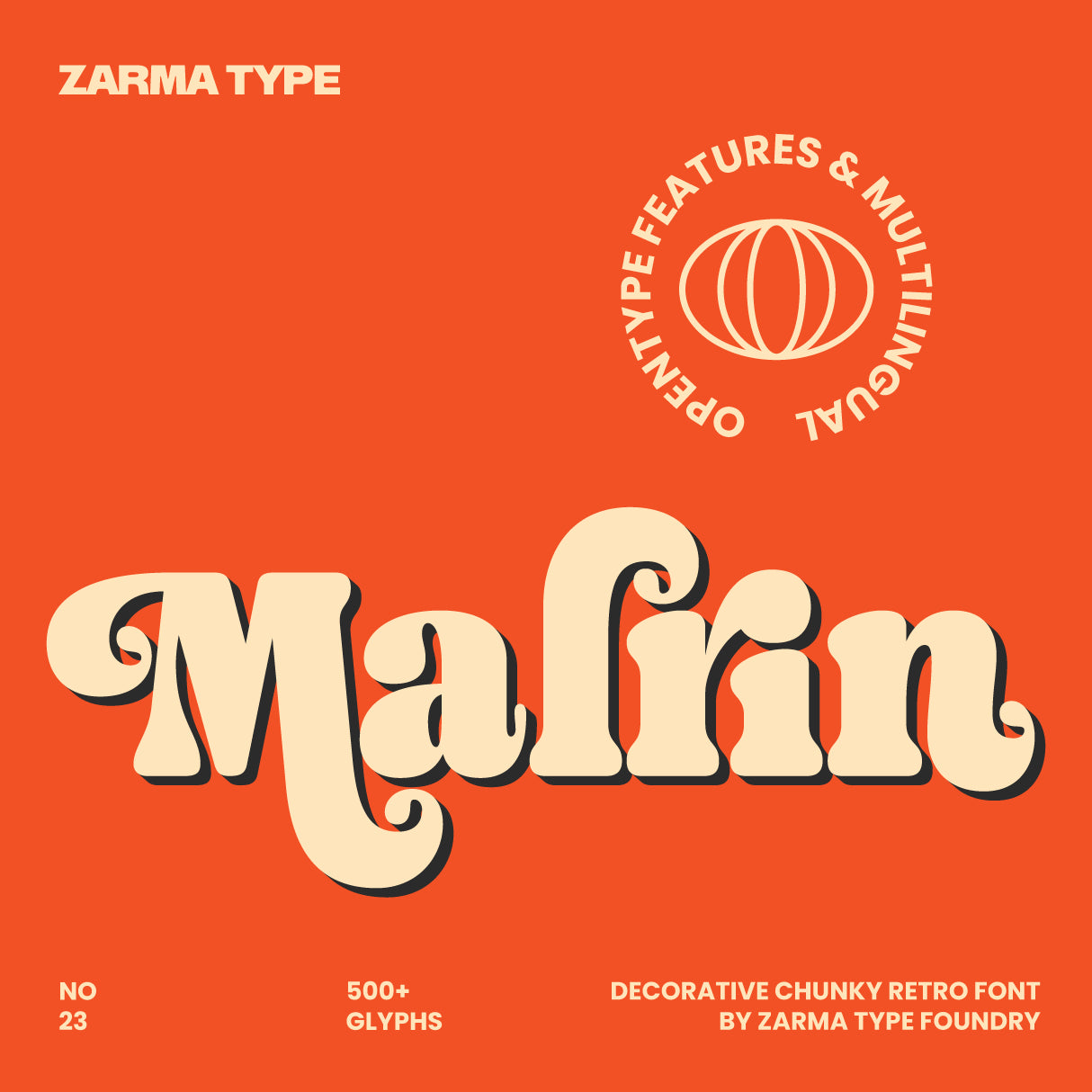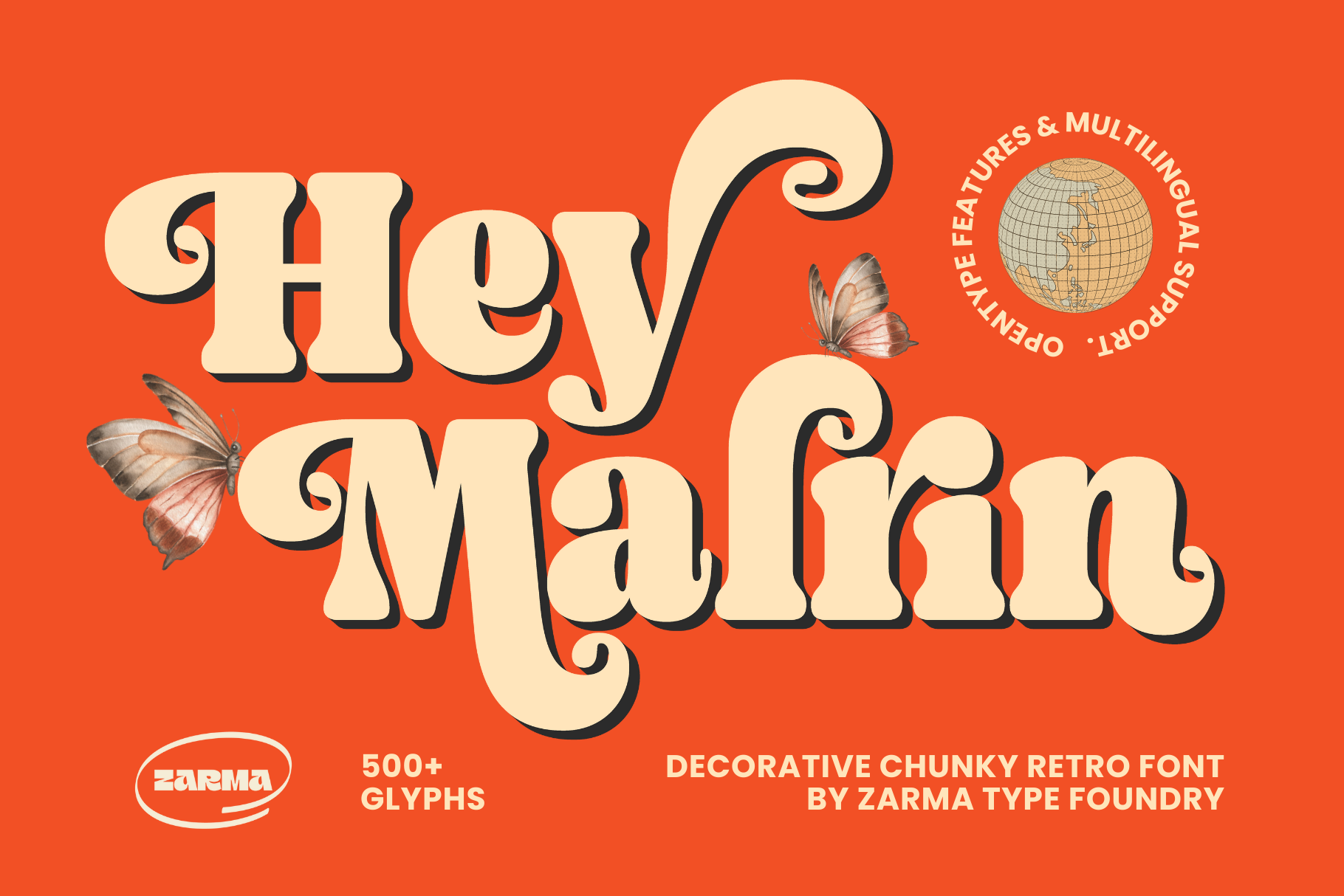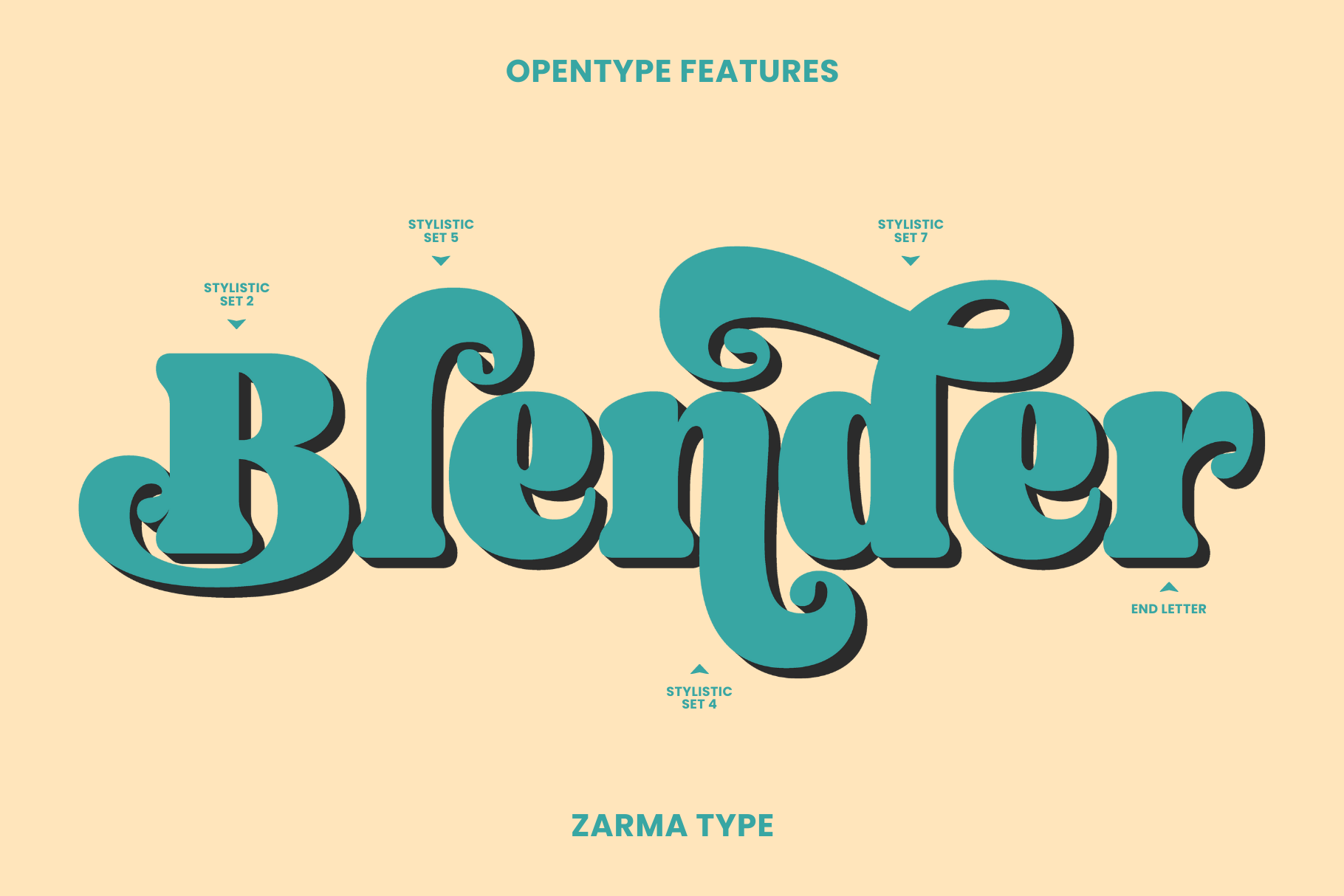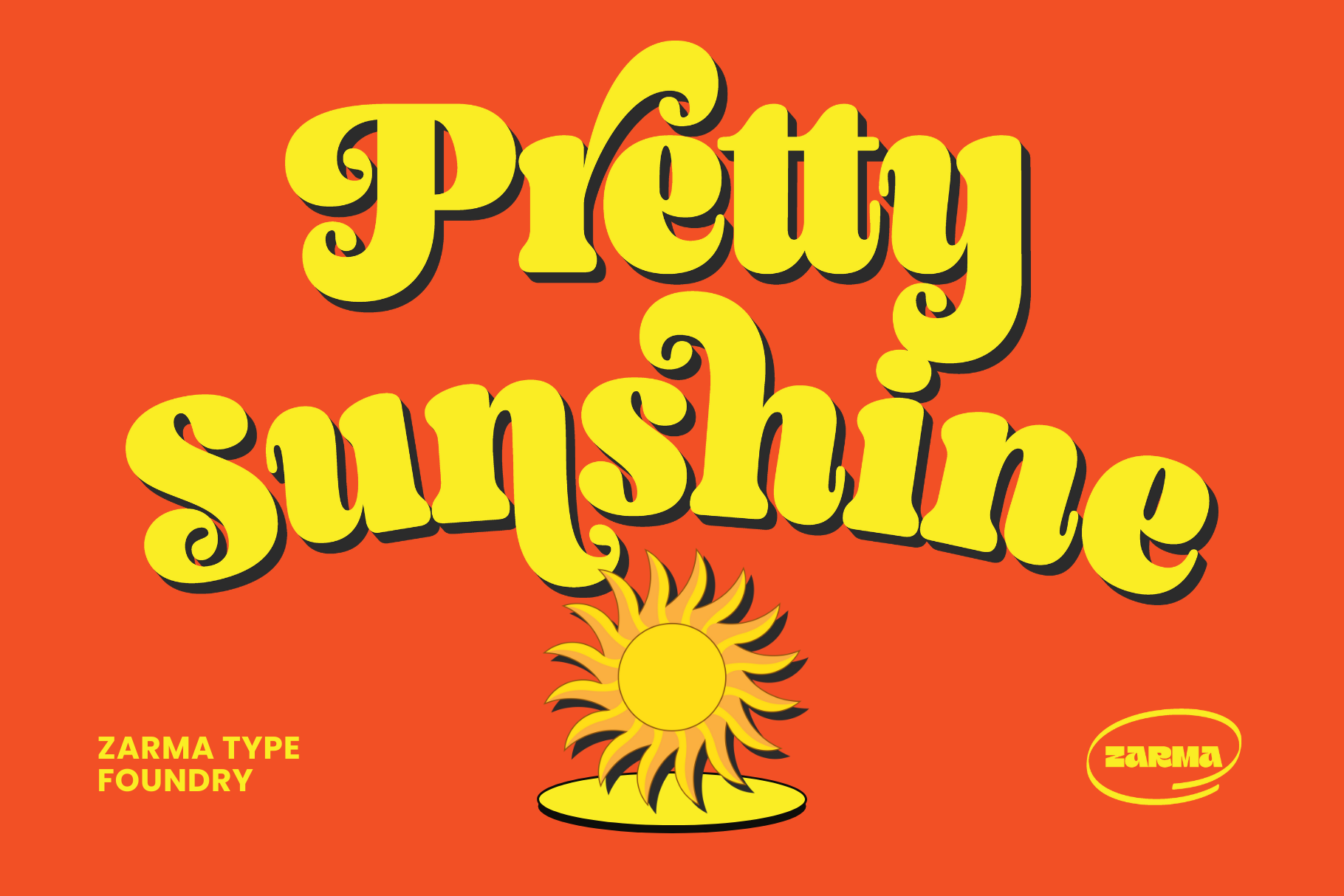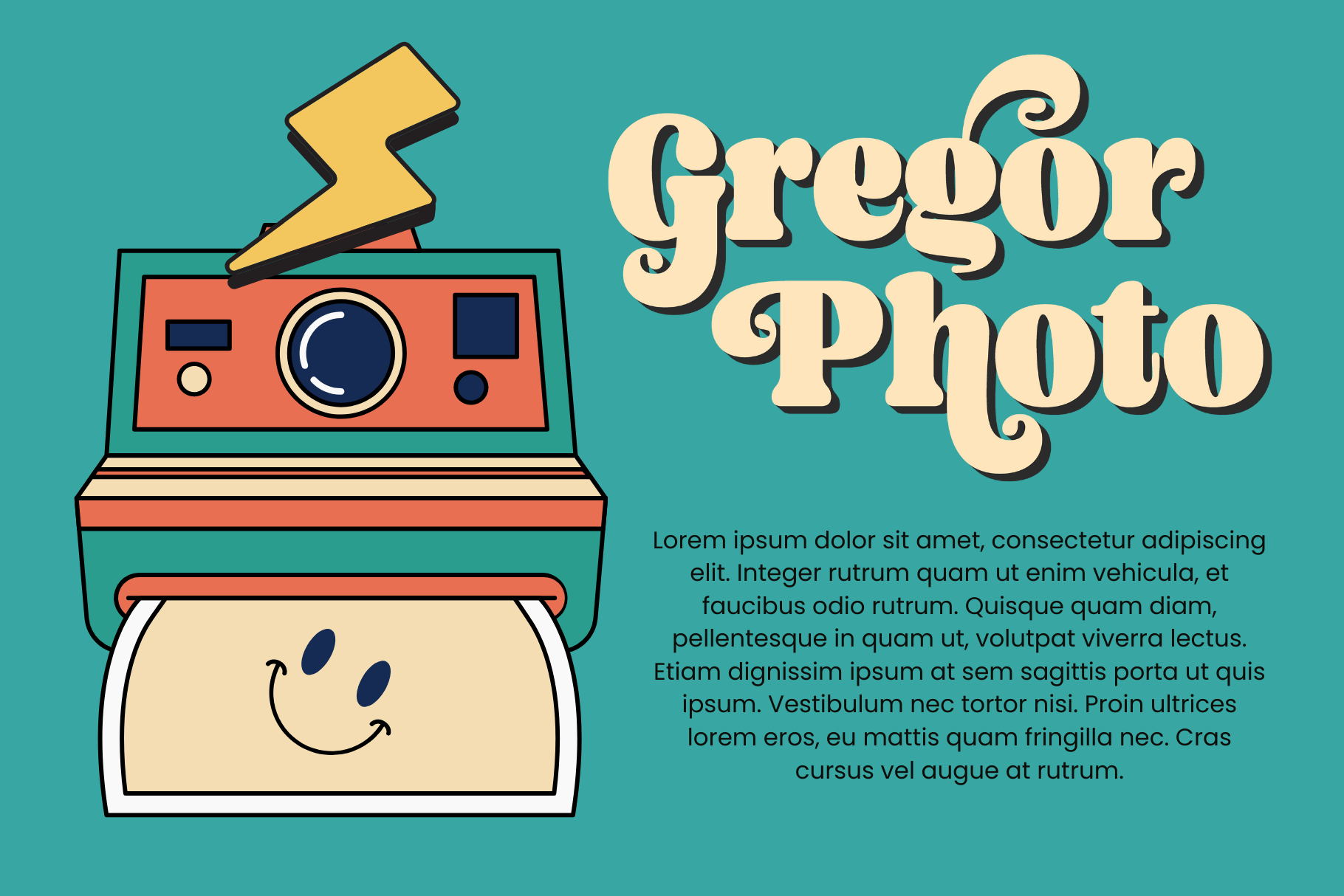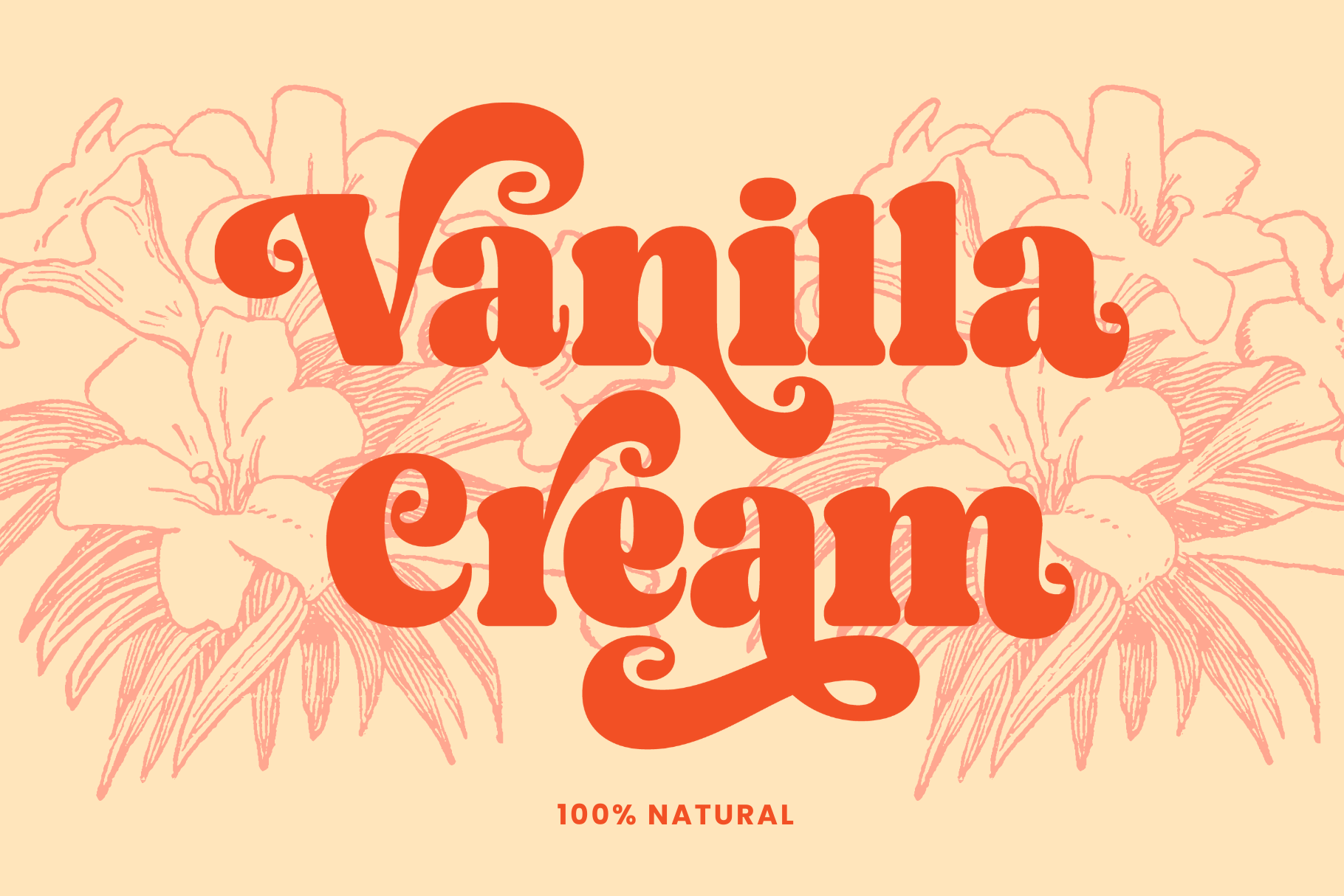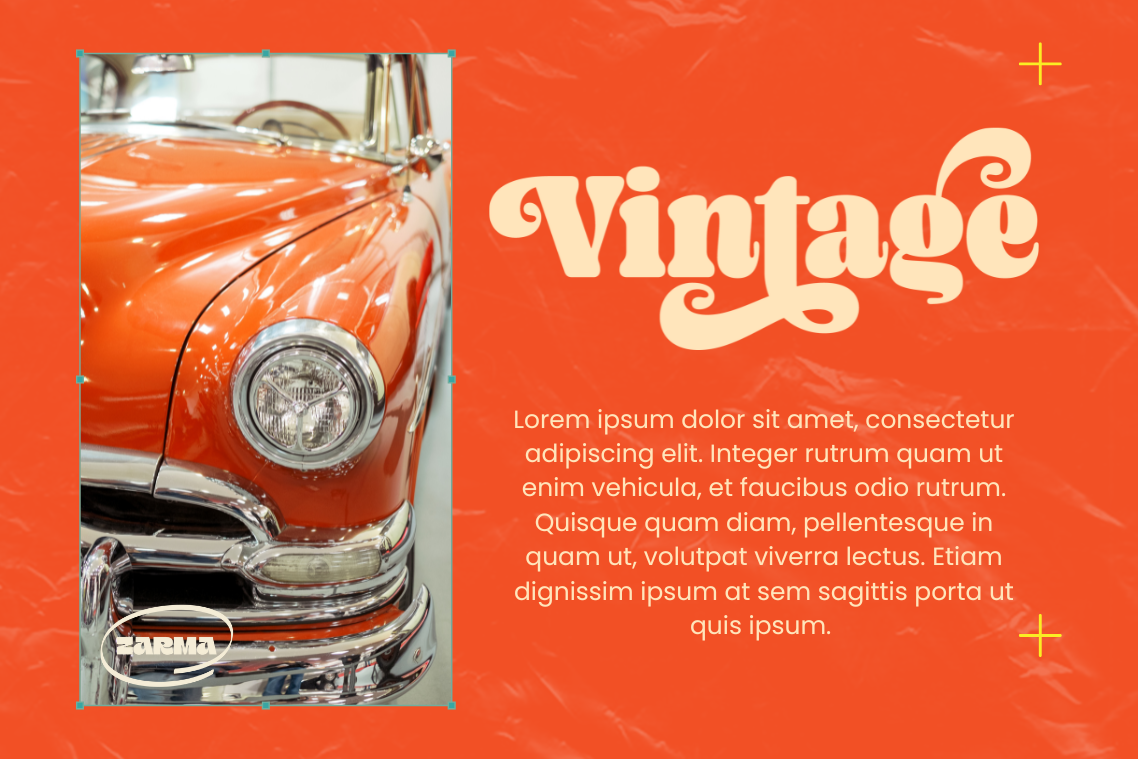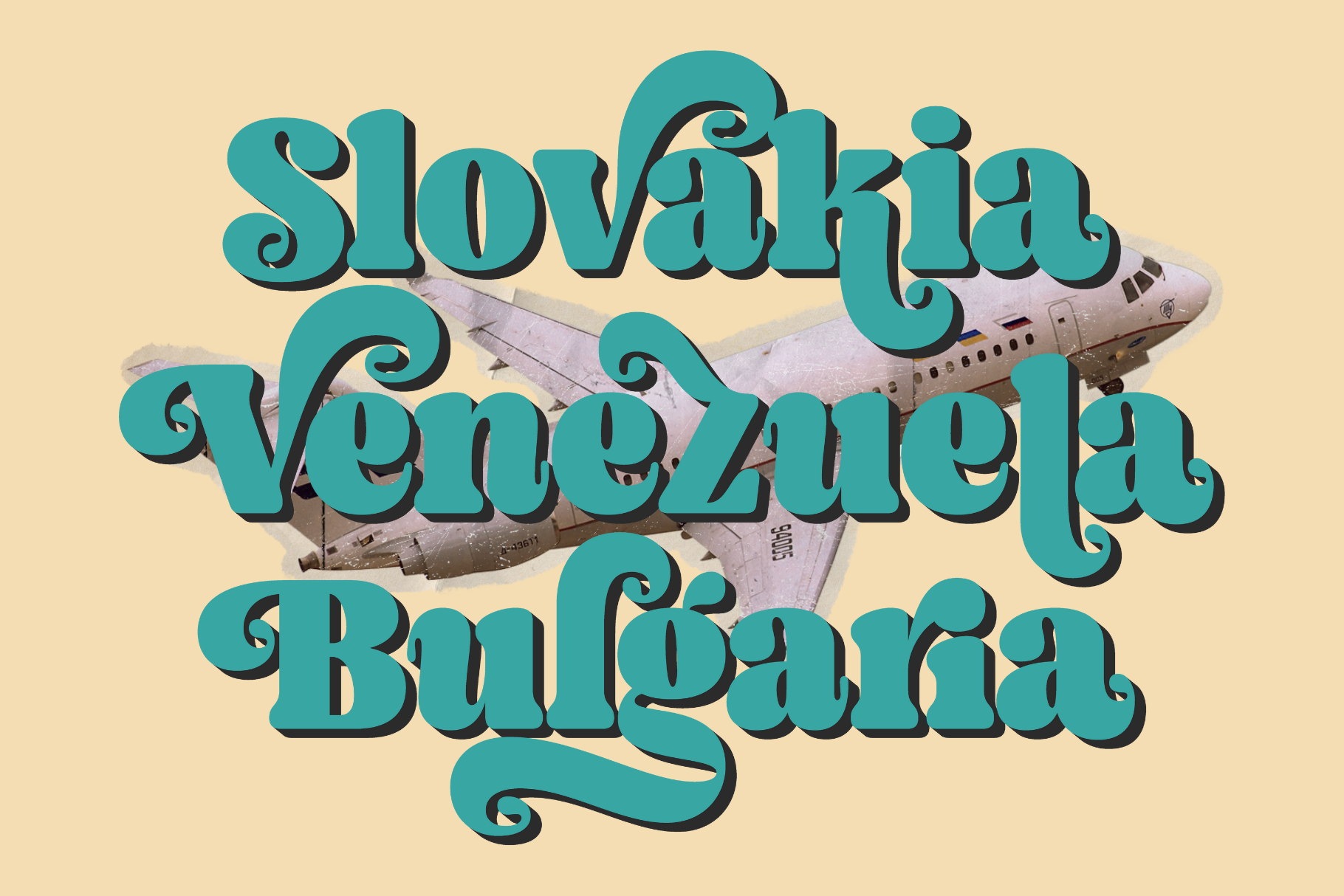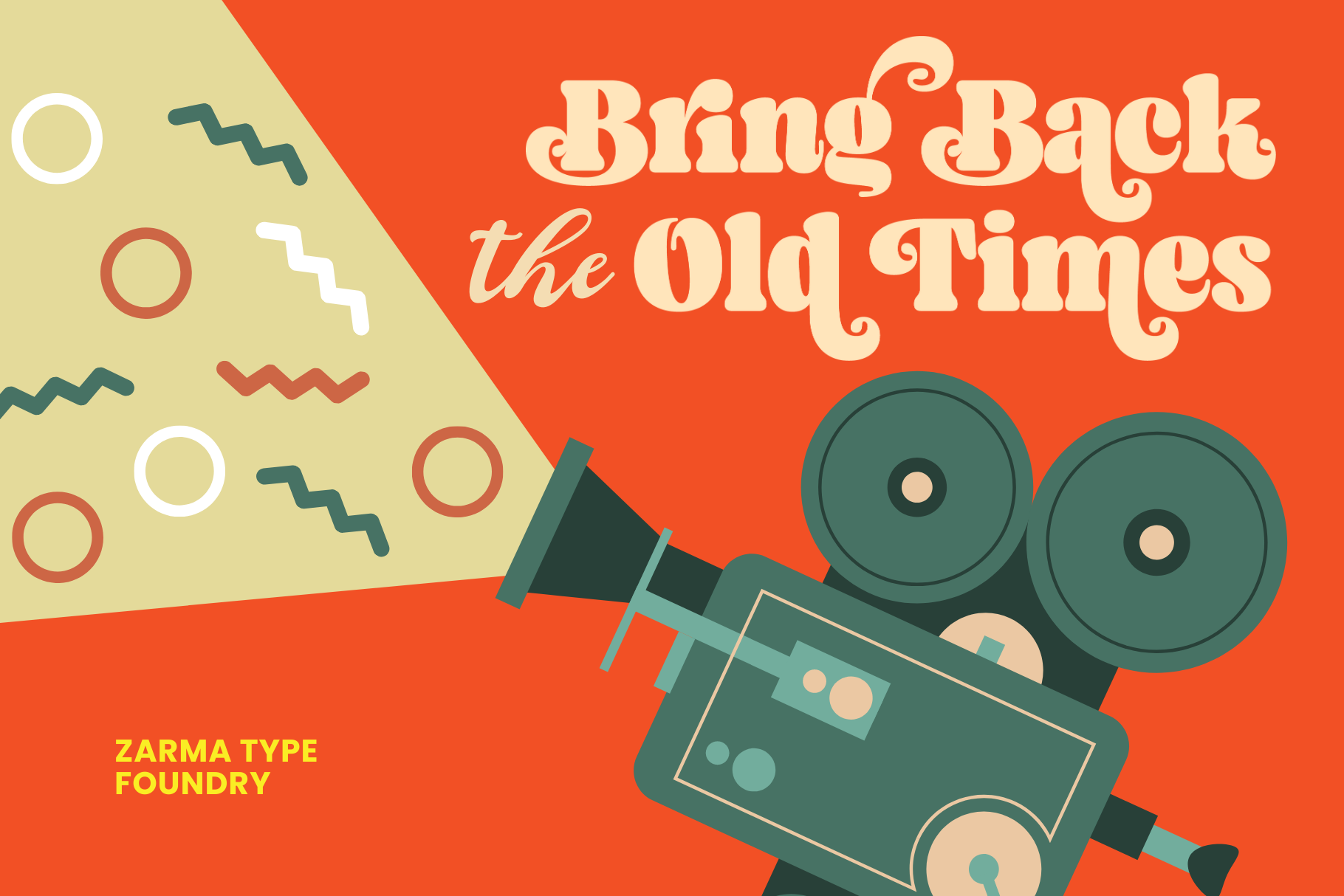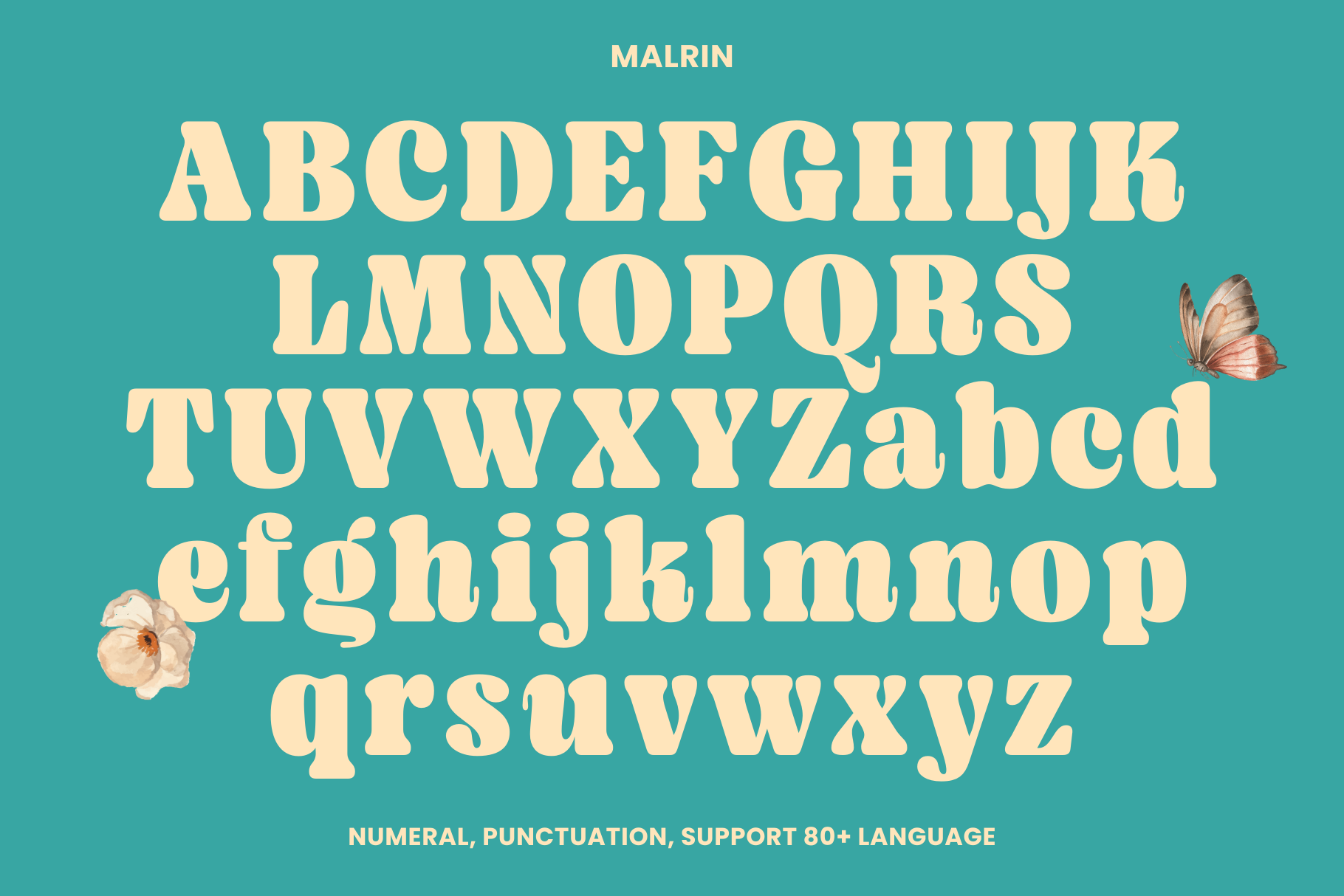
Malrin Font
Some typefaces are designed to be noticed, while others are impossible to ignore. Malrin was created for the latter—a chunky retro display font inspired by the iconic fatface typefaces that once dominated vintage advertising and bold editorial headlines. Infused with groovy curves, funky energy, and just a touch of psychedelic attitude, Malrin brings playful nostalgia into the modern design world. Every letter is crafted to make a statement, transforming ordinary words into eye-catching compositions filled with confidence, personality, and unmistakable retro charm.
Whether you're creating a standout logo, a striking poster, bold packaging, expressive branding, or oversized headlines, Malrin delivers the impact your design deserves. It includes uppercase and lowercase characters, numbers, punctuation, more than 180 stylistic alternates, carefully crafted ligatures, and PUA encoding for effortless access to its creative letterforms. With Extended Latin coverage and multilingual support, Malrin gives you the freedom to explore endless typographic possibilities while capturing the vibrant spirit of vintage design through a bold, contemporary lens.
Malrin Font is a chunky retro display typeface inspired by vintage fatface designs, featuring uppercase and lowercase characters, numbers, punctuation, over 180 stylistic alternates, and ligatures. It offers Extended Latin coverage and multilingual support, making it suitable for a variety of design applications.